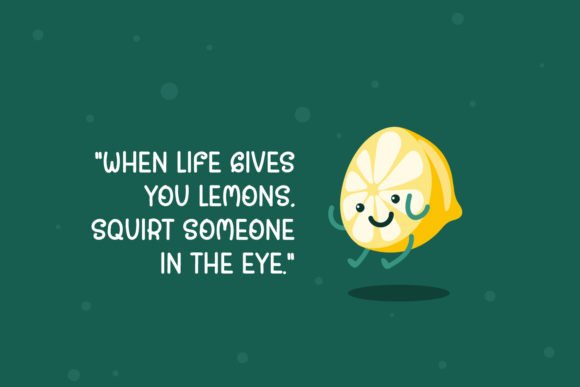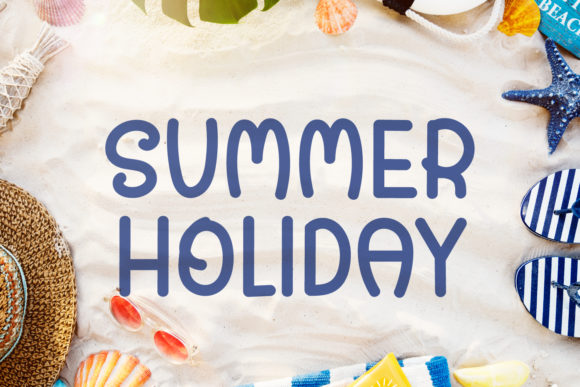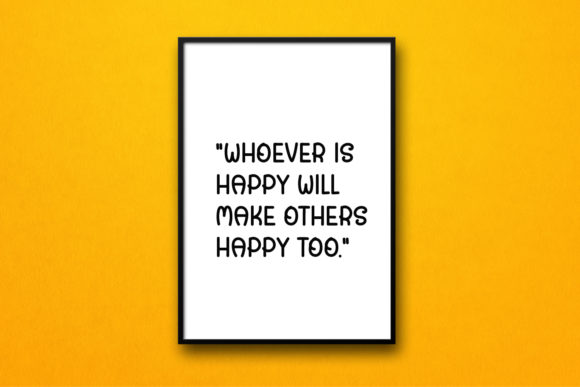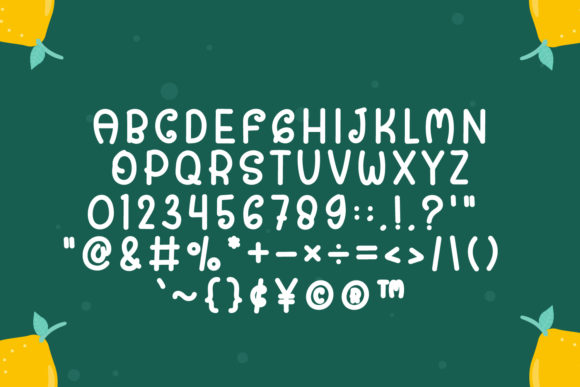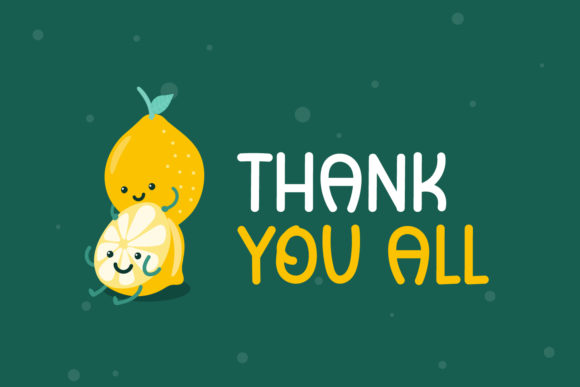
Introducing Fresh Drinks Font: The Perfect Addition to Your Design Collection
Are you a designer or crafter looking for a font that can elevate your creative projects? Look no further than Fresh Drinks Font, a cute and simple display font that’s perfect for adding a touch of personality to your designs. In this article, we’ll take a closer look at Fresh Drinks Font, its features, and how it can complement your design ideas.
What is Fresh Drinks Font?
Fresh Drinks Font is a modern, trendy, and highly adaptable display font that’s designed to make your designs stand out. Its simplicity and cuteness make it an excellent choice for a wide range of projects, from branding and advertising to crafting and DIY tutorials. The font’s clean lines, rounded edges, and balanced proportions create a visually appealing aesthetic that’s both fun and engaging.
Key Features of Fresh Drinks Font
- Cute and Simple Design: Fresh Drinks Font boasts a charming and straightforward design that’s perfect for creating eye-catching headlines, titles, and labels.
- Trendy and Adaptable: This font is designed to keep up with the latest design trends, making it an excellent choice for modern designs that require a fresh and youthful feel.
- Readable and Versatile: Fresh Drinks Font is optimized for readability, ensuring that your text remains clear and easy to read, even at smaller font sizes.
How to Use Fresh Drinks Font in Your Designs
Fresh Drinks Font is an incredibly versatile font that can be used in a variety of design projects, including:
- Branding and Logo Design: Create memorable logos, business cards, and brand identities with Fresh Drinks Font’s unique and captivating style.
- Advertising and Marketing Materials: Use Fresh Drinks Font to create eye-catching posters, flyers, brochures, and social media graphics that grab attention.
- Crafting and DIY Tutorials: Add a personal touch to your crafting and DIY projects with Fresh Drinks Font’s charming and hand-crafted feel.
- Web Design and Development: Enhance your website’s typography with Fresh Drinks Font, creating a consistent and engaging user experience.
Benefits of Using Fresh Drinks Font
By incorporating Fresh Drinks Font into your design projects, you’ll enjoy several benefits, including:
- Unique and Memorable Designs: Fresh Drinks Font’s distinctive style will help your designs stand out from the crowd and leave a lasting impression.
- Easy to Read and Understand: The font’s optimized readability ensures that your message is conveyed clearly and effectively.
- Flexibility and Adaptability: Fresh Drinks Font can be used in a wide range of design projects, making it an excellent addition to your font collection.
Fresh Drinks Font is an exceptional display font that’s perfect for designers and crafters looking to add a touch of personality to their creative projects. Its cute and simple design, trendy and adaptable style, and optimized readability make it an excellent choice for a wide range of applications. Whether you’re working on branding, advertising, crafting, or web design, Fresh Drinks Font is sure to become a valuable asset in your design toolkit.